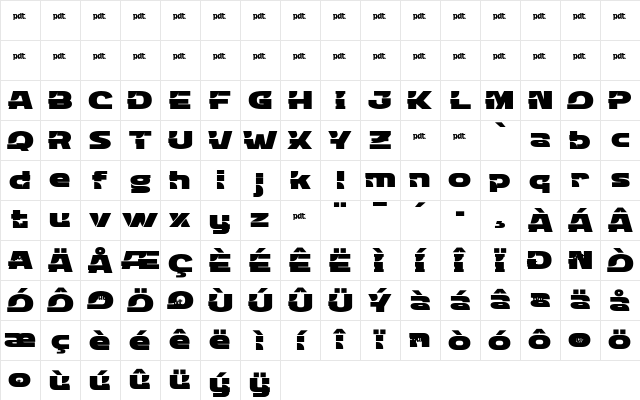
DROPEX Regular is a composed and adaptable typeface that performs quietly and consistently across a wide range of design contexts.
Pro Tip: Use DROPEX Regular in both headline and body roles to test its range before committing to a single application.